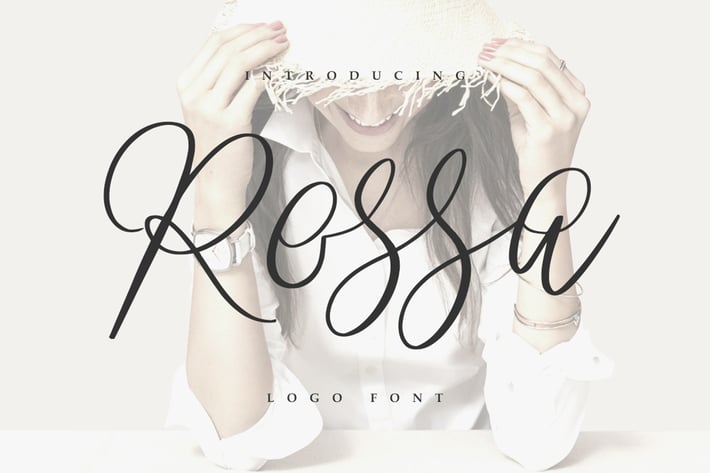
Rossa Script - Logo Font
Give your designs an authentic handcrafted feel. "Rossa Script" is perfectly suited to signature, stationery, logo, typography quotes, magazine or book cover, website header, clothing, branding, packaging design and more.